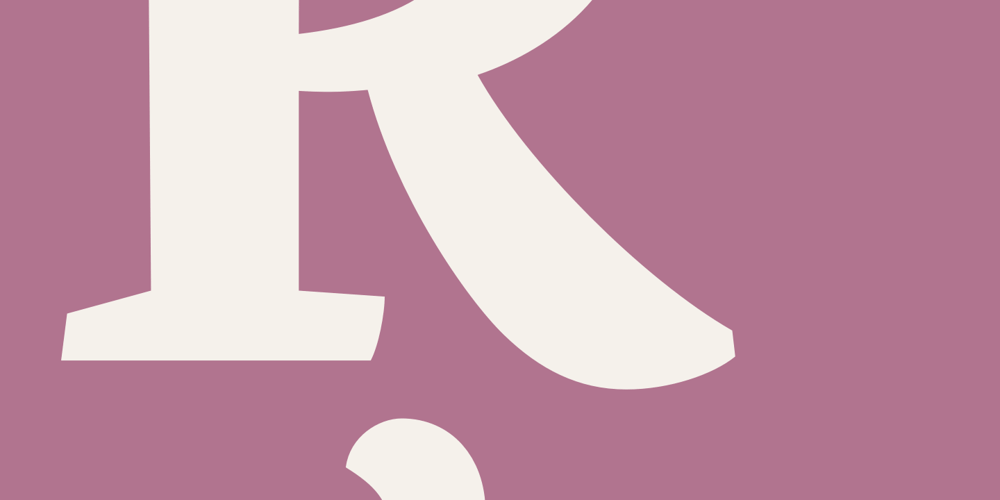
Ginkgo Font Family was designed by Alex Rütten and published by Linotype. Ginkgo contains 4 styles and family package options. Designed by Alex Rütten, Ginkgo is a stylish text typeface. It works well for setting extended passages of text at small sizes thanks to its open counters, generous character widths, and clear and unique letterforms. On top of that, the handling of details such as in the serifs, cross bars, and terminals are wonderful to appreciate when used at large point sizes as well. Gingko received a Certificate of Excellence in Type Design at the Type Directors Club of New York TDC2 competition in 2009.